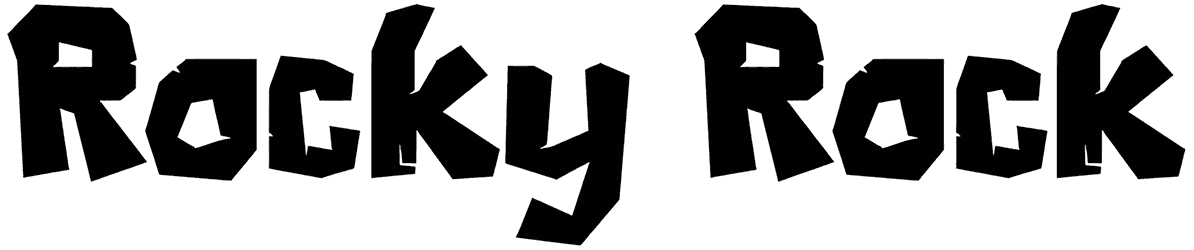
Rocky Rock Font
Rocky Rock is a modern, distorted font with a design inspired by human handwriting and manual culture. While this stone font is perfect for poster design or advertising, you can use it with other creative strategies and design an attractive paleolithic text. The thick, broken lines in this cartoon font have their unique design, helping to add a personal touch to various methods.